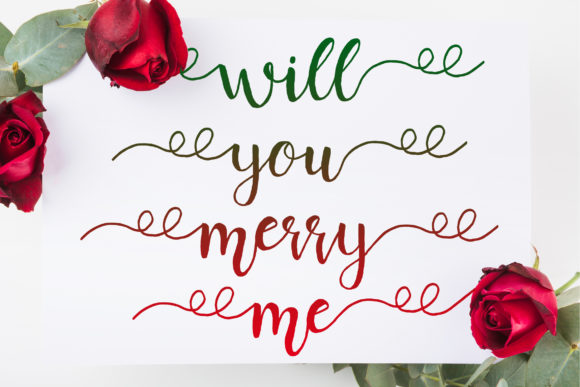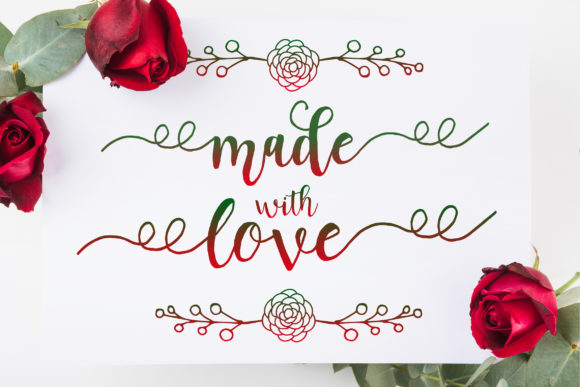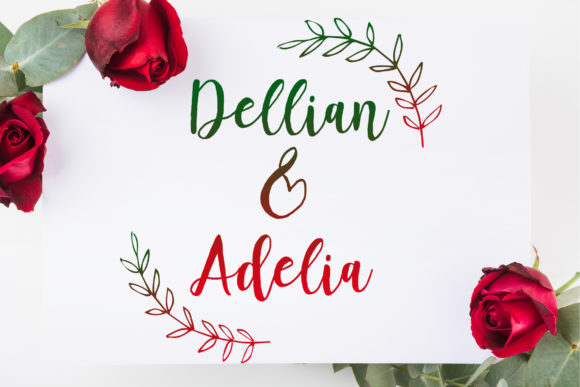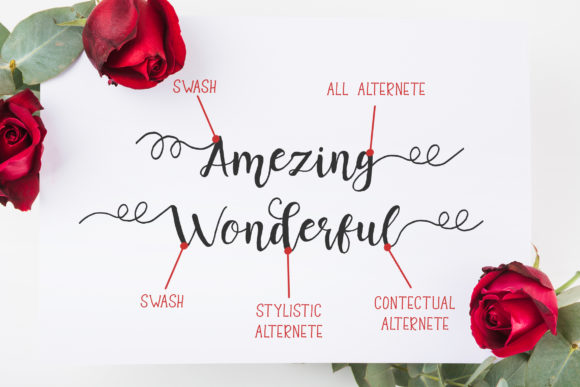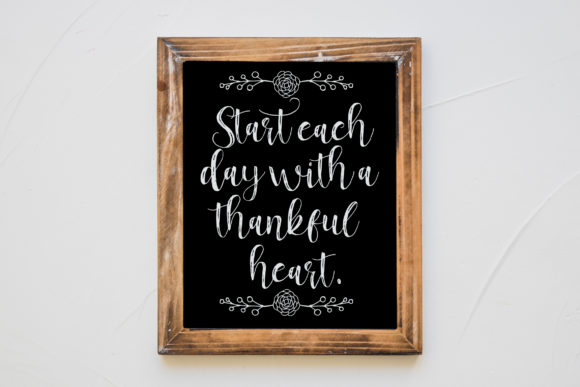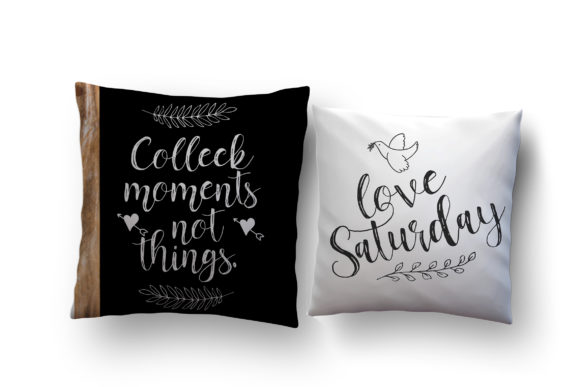
Baharatta Font: A Delicate yet Bold Handwritten Marvel
Baharatta is an incredibly delicate and stunning handwritten font with a bold feel. Fall in love with its unique feel! This exquisite font is a perfect blend of elegance and playfulness, making it a must-have for designers and crafters looking to add a touch of sophistication to their projects.
The Charm of Baharatta Font
Baharatta font boasts a distinctive, hand-crafted look that sets it apart from other fonts. Its delicate strokes and bold feel create a captivating visual experience, making it perfect for a wide range of design applications. Whether you’re working on a logo, branding materials, or creative projects, Baharatta font is sure to make a lasting impression.
Key Features of Baharatta Font
- Delicate yet bold feel: Baharatta font strikes the perfect balance between delicacy and boldness, making it versatile and suitable for various design projects.
- Unique handwritten style: The font’s hand-crafted look adds a personal touch to your designs, setting them apart from the crowd.
- Elegant and playful: Baharatta font seamlessly blends elegance and playfulness, making it perfect for a wide range of design applications.
- High-quality design: The font is meticulously designed to ensure that it looks stunning in any context.
What Makes Baharatta Font Special?
Baharatta font is more than just a beautiful font – it’s an experience. Its unique feel and delicate yet bold strokes make it perfect for designers and crafters who want to add a touch of sophistication to their projects. Here are a few reasons why Baharatta font stands out:
- Emotional connection: The font’s hand-crafted look creates an emotional connection with the viewer, making your designs more relatable and engaging.
- Versatility: Baharatta font is suitable for a wide range of design applications, from logos and branding materials to creative projects and crafts.
- Timeless appeal: The font’s classic yet modern design ensures that it will remain relevant for years to come.
How to Use Baharatta Font in Your Designs
Using Baharatta font in your designs is easy and straightforward. Here are a few tips to get you started:
- Pair it with complementary fonts: Combine Baharatta font with complementary fonts to create a unique and visually appealing design.
- Experiment with different sizes and colors: Play around with different sizes and colors to find the perfect combination for your design.
- Use it for headlines and titles: Baharatta font is perfect for headlines and titles, where its bold feel and delicate strokes can make a lasting impression.
Who Can Benefit from Baharatta Font?
Baharatta font is perfect for designers, crafters, and anyone looking to add a touch of sophistication to their projects. Here are a few examples of who can benefit from this amazing font:
- Graphic designers: Baharatta font is a must-have for graphic designers looking to create stunning logos, branding materials, and creative projects.
- Crafters and DIY enthusiasts: The font’s delicate yet bold feel makes it perfect for crafters and DIY enthusiasts looking to add a personal touch to their projects.
- Small business owners: Baharatta font can help small business owners create a unique and memorable brand identity.
Baharatta font is an incredibly delicate and stunning handwritten font with a bold feel. Its unique feel and captivating visual experience make it perfect for designers and crafters looking to add a touch of sophistication to their projects. With its versatility, timeless appeal, and emotional connection, Baharatta font is a must-have for anyone looking to create stunning designs.